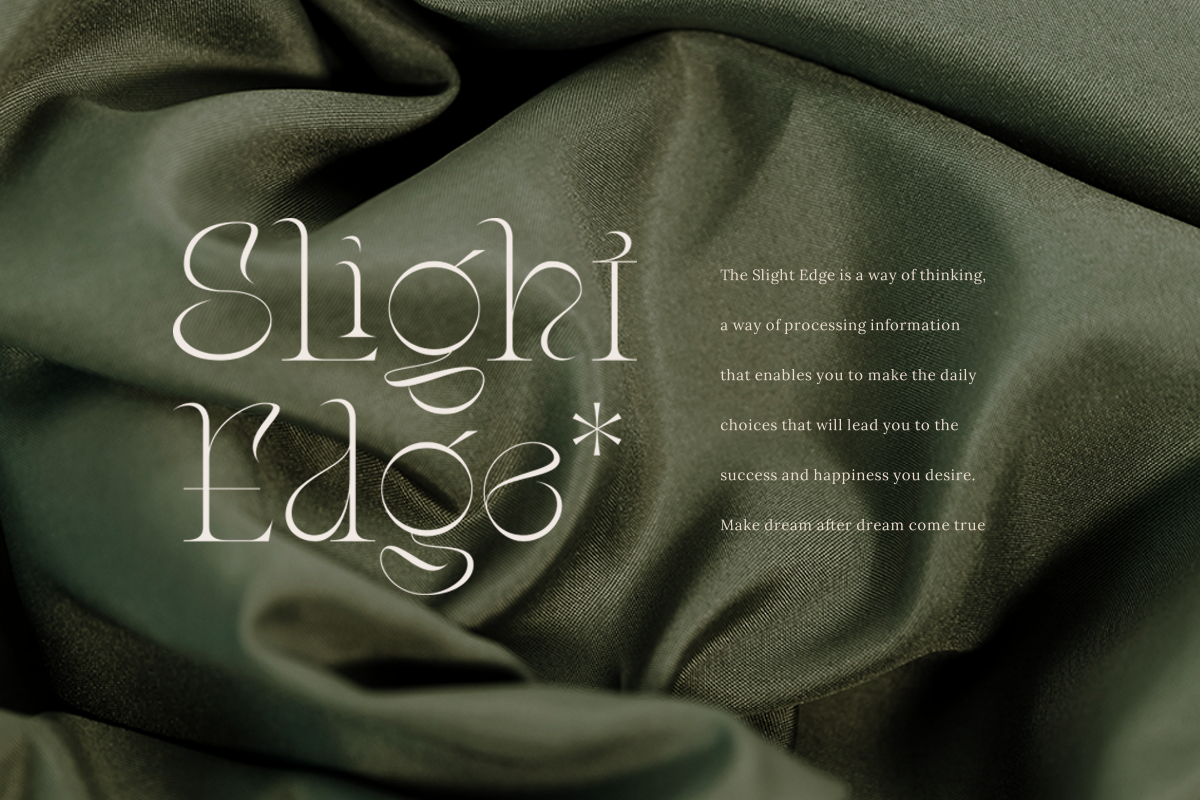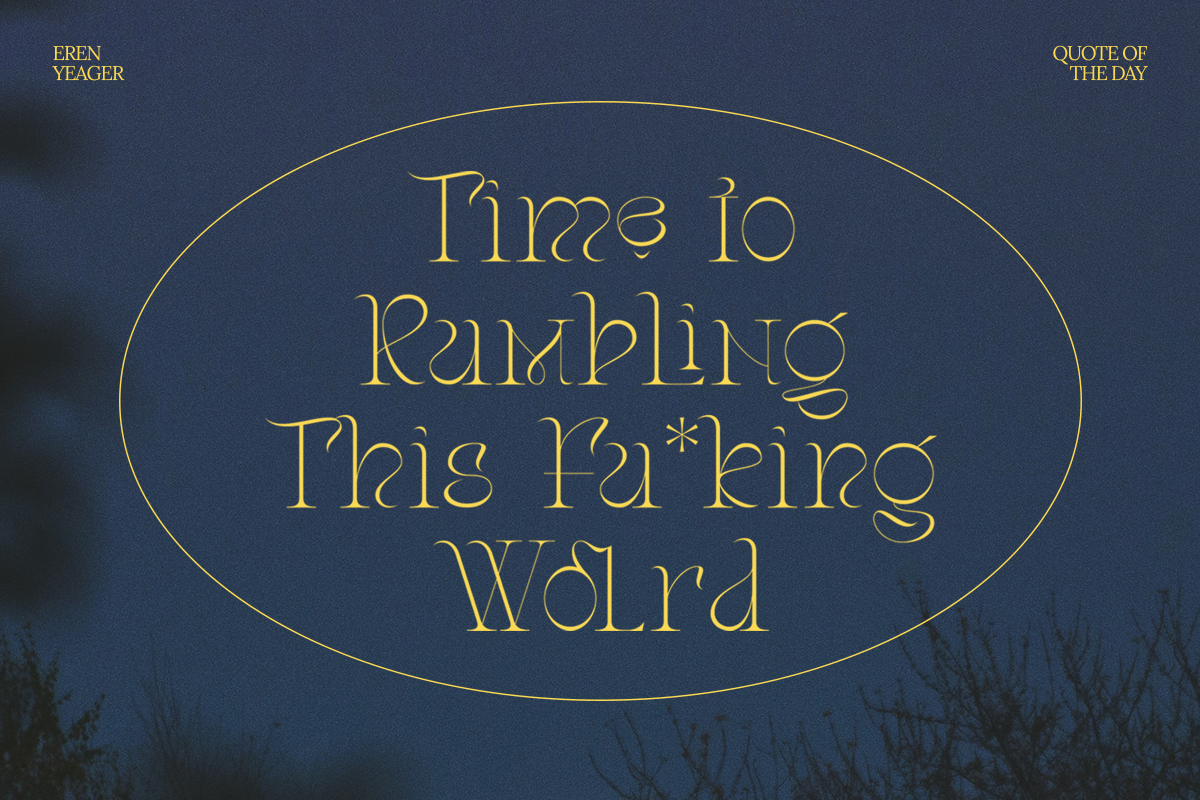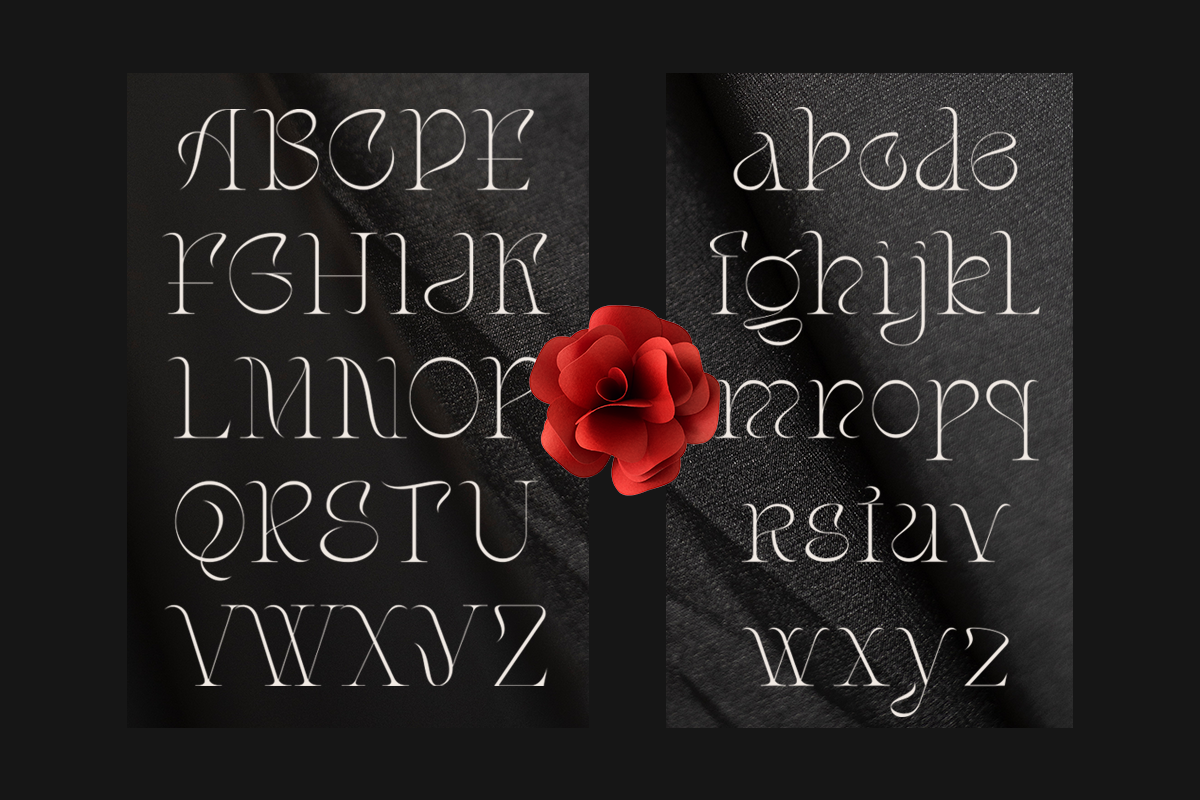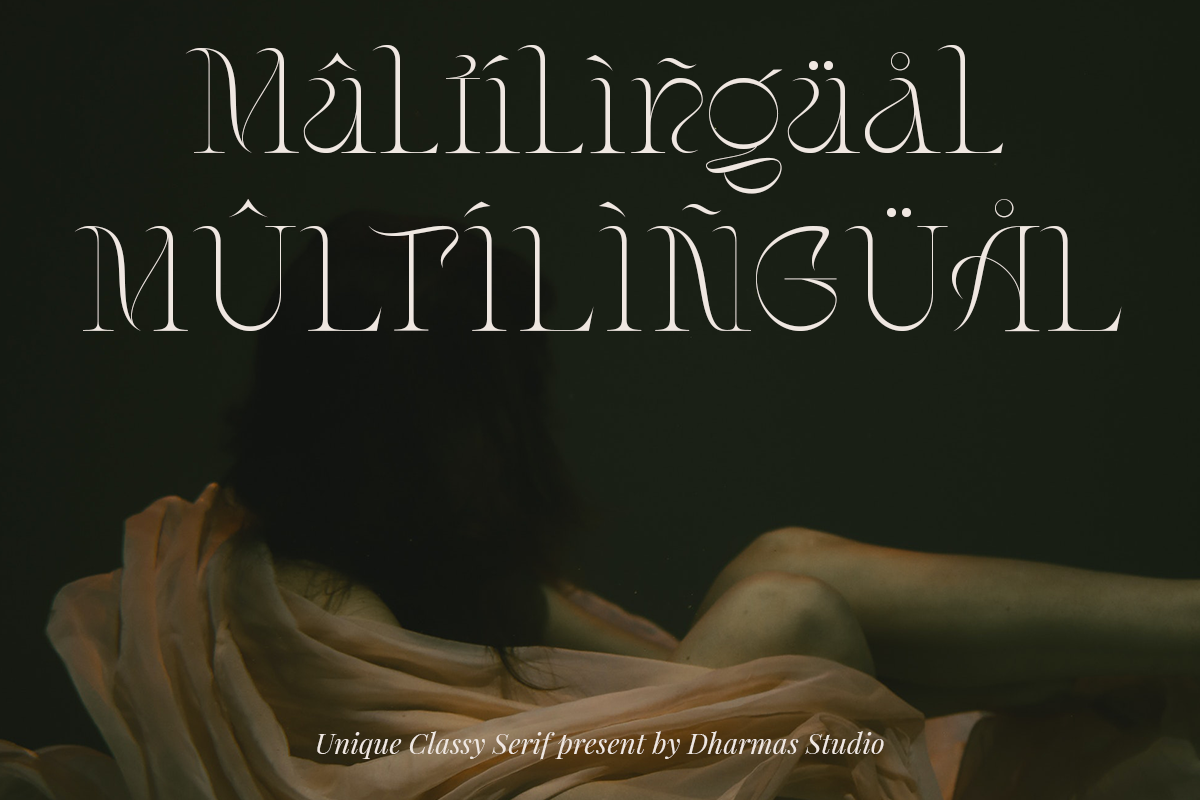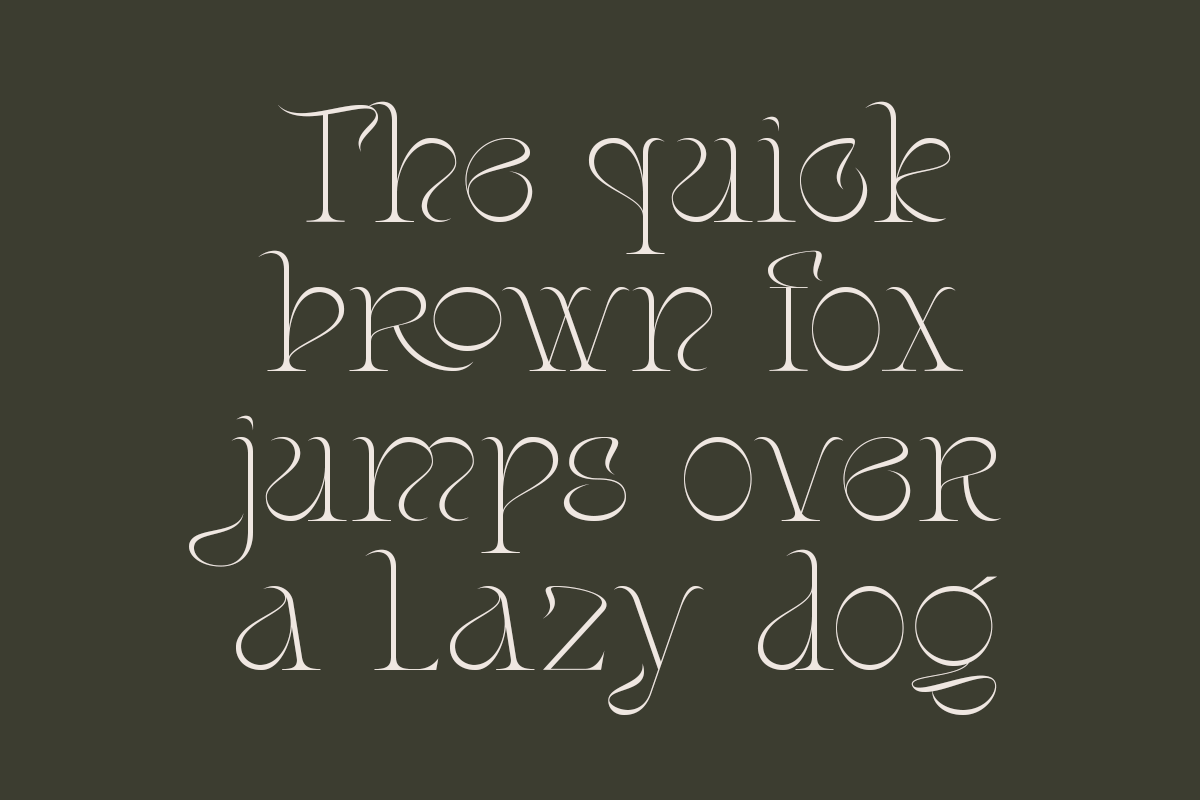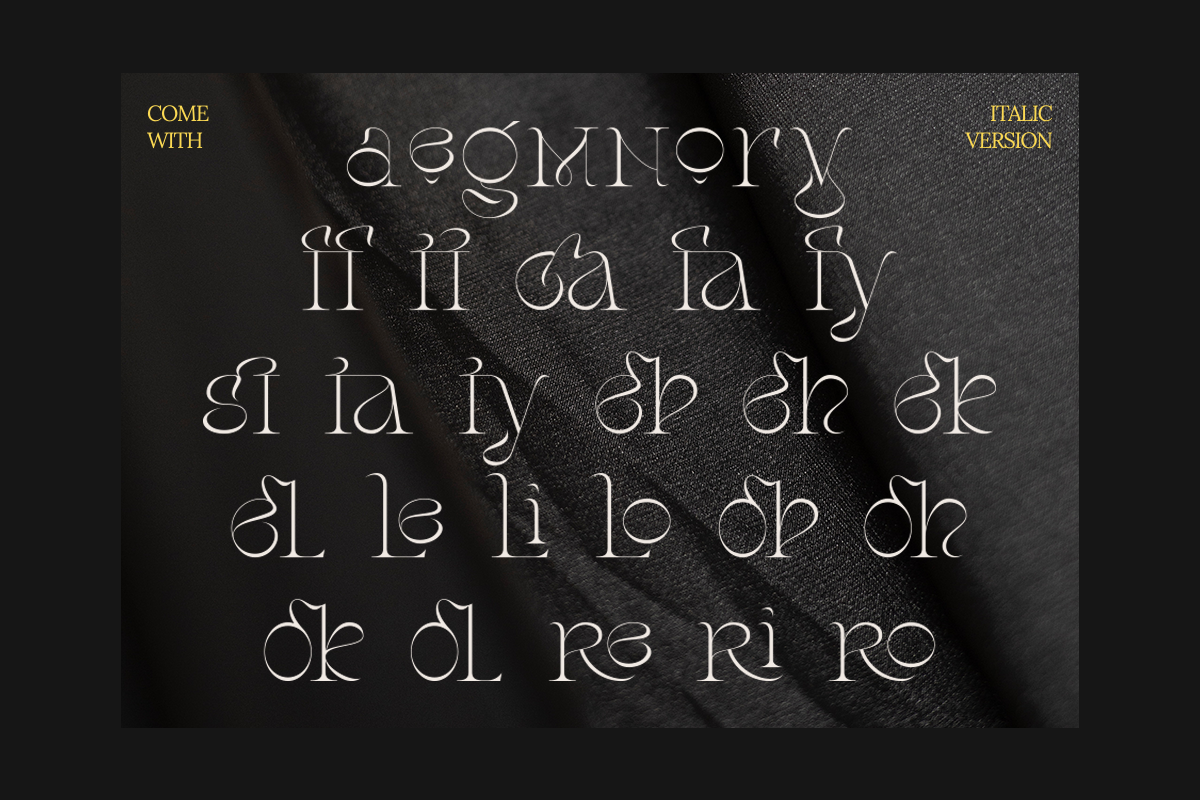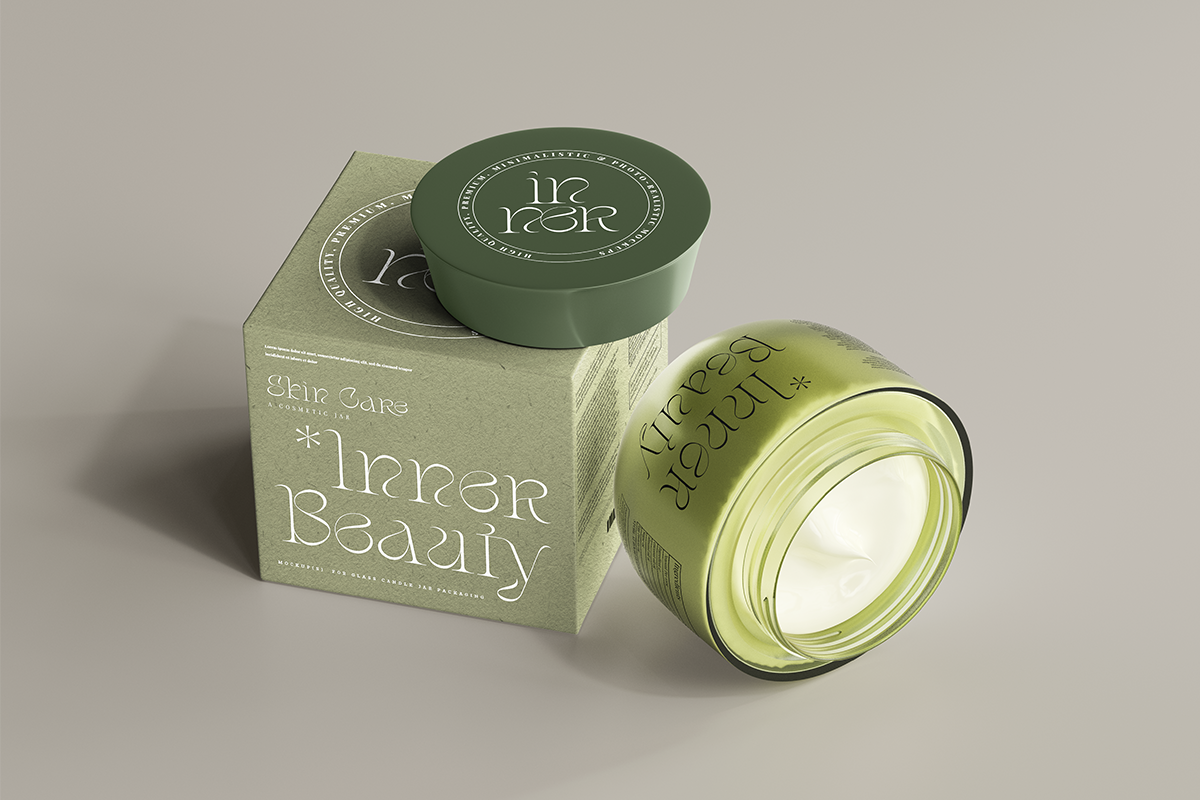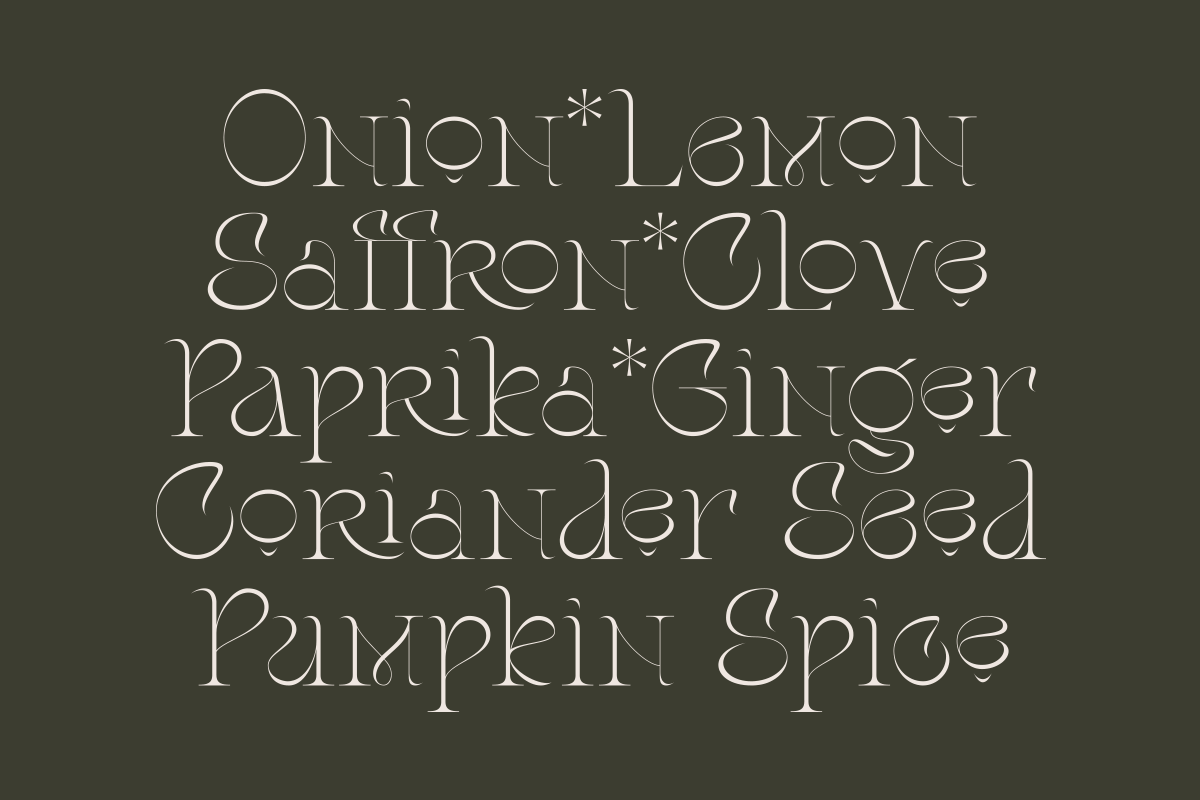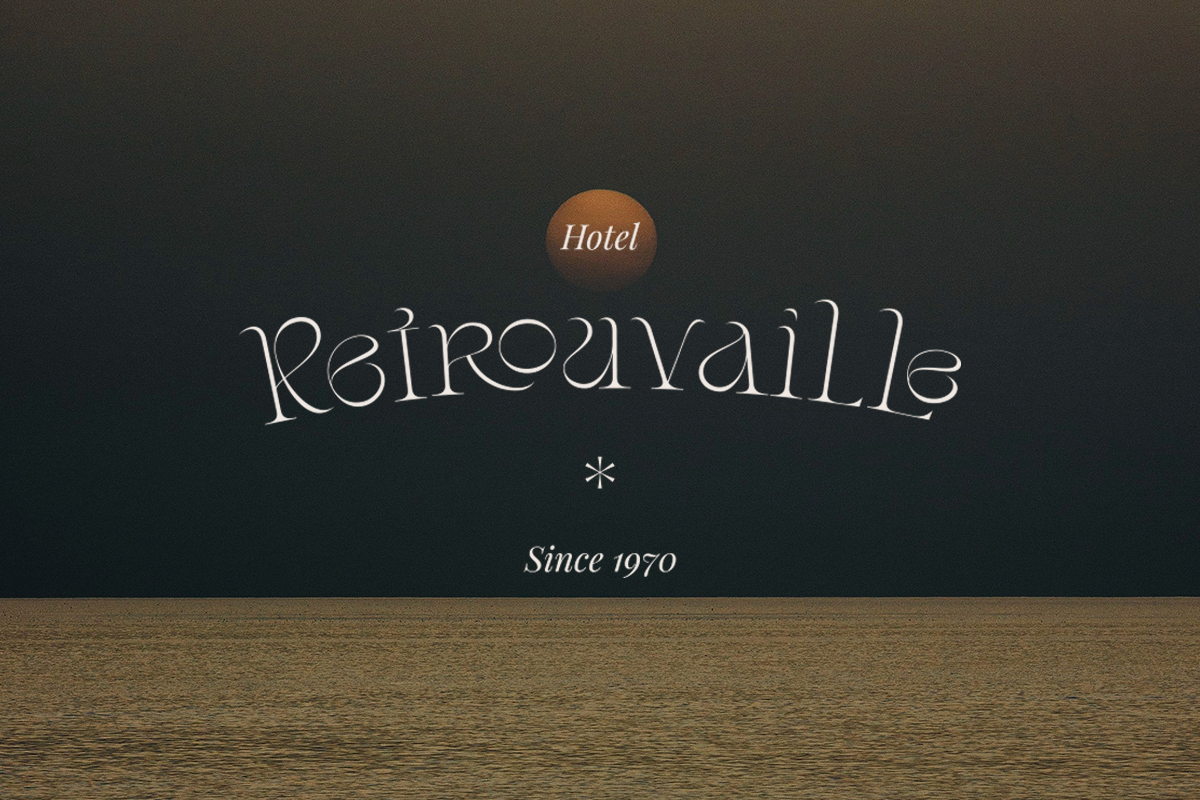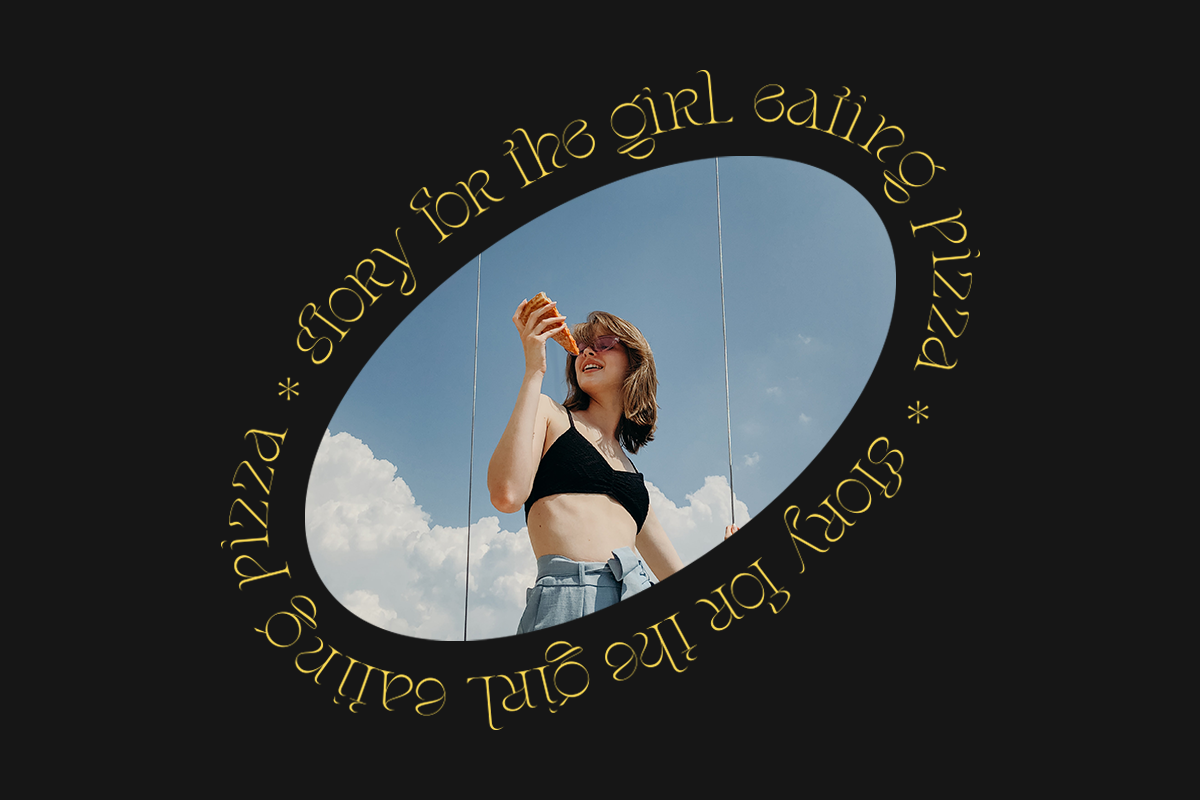
Stager - Unique Classy Serif
New branding from AROGANT font, so we present to you, Stager!
Stager - A stylish serif with an artistic, unique and classy touch that brings us to the nostalgic era. Thin letter anatomy collaborates with unique alternates and beautiful ligature so making any project seem chic, minimalist, luxurious, unique, artistic, art deco vibes
Stager - Come with an italic version, so perfectly suitable for creating elegant, simple, retro designs such as branding, poster design, books, fashion, social media designs, logos, etc.
Regular and Italic
Alternate and Ligature